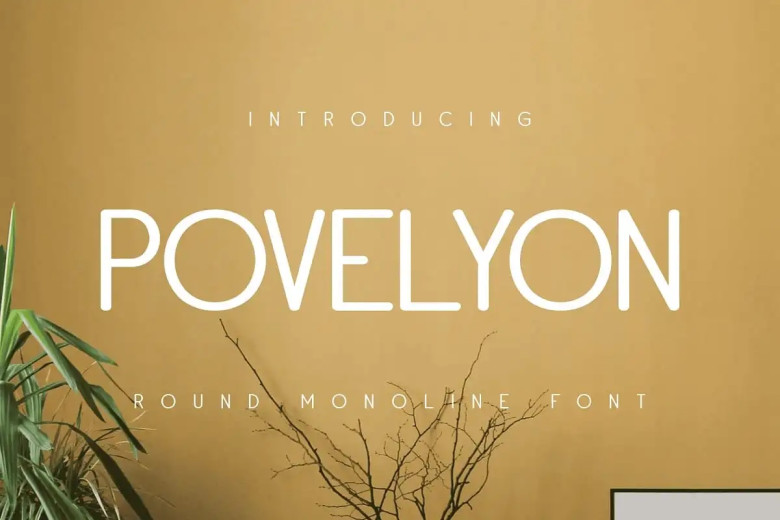
Povelyon Font
Povelyon is a delicate and elegant font with its delicate curves and delicate appearance, while Povelyon features more bold lines with varied thicknesses that creates a balanced font with its variety of thicknesses.
Povelyon Elegant Sans Serif Font